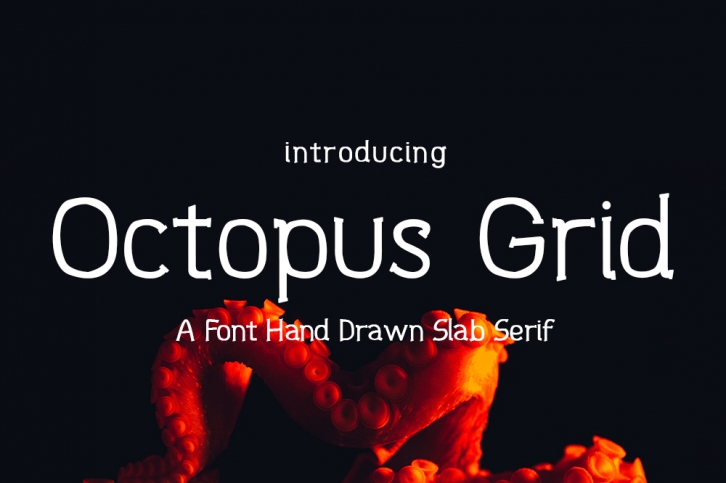
Octopus Grid is a trendy and unique font with an authentic style. It was designed by syabab studio and it's a great choice for creative people who need such a font. It was released on July 24, 2018 and the file size is 5.87 MB. Octopus Grid will add an organic vibe to any design idea!